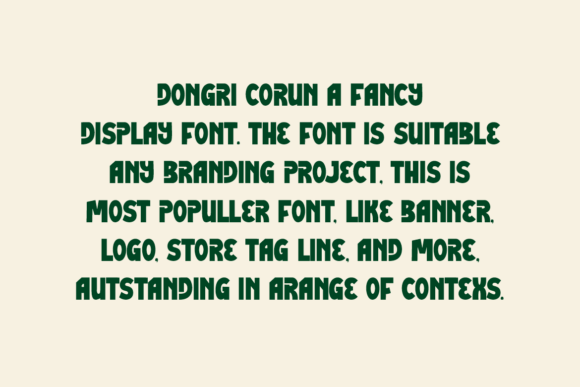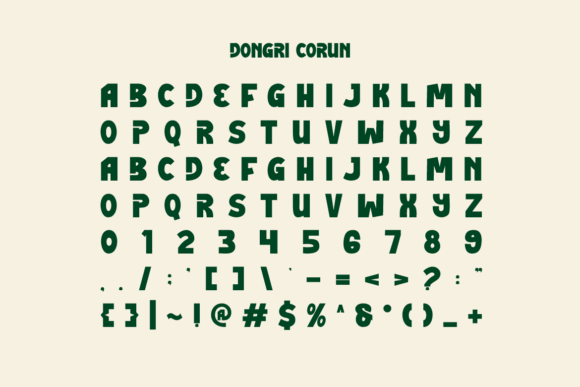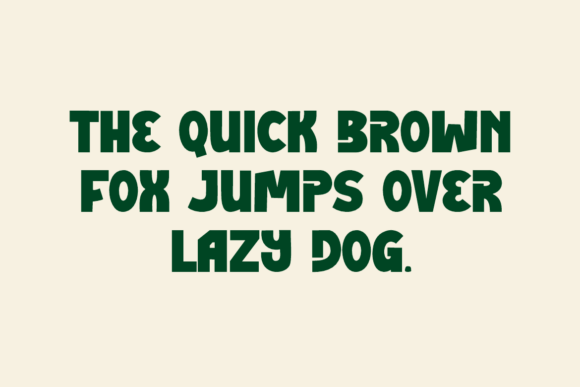
Introduction to Dongri Corun Font
Dongri Corun is a bold and playful display font with a whimsical charm.
Its chunky letterforms and unique angles make it perfect for comic-style designs, kids’ themes, fun branding projects, and posters that need an energetic and attention-grabbing vibe Ideal for loud titles and headlines that don’t take themselves too seriously.